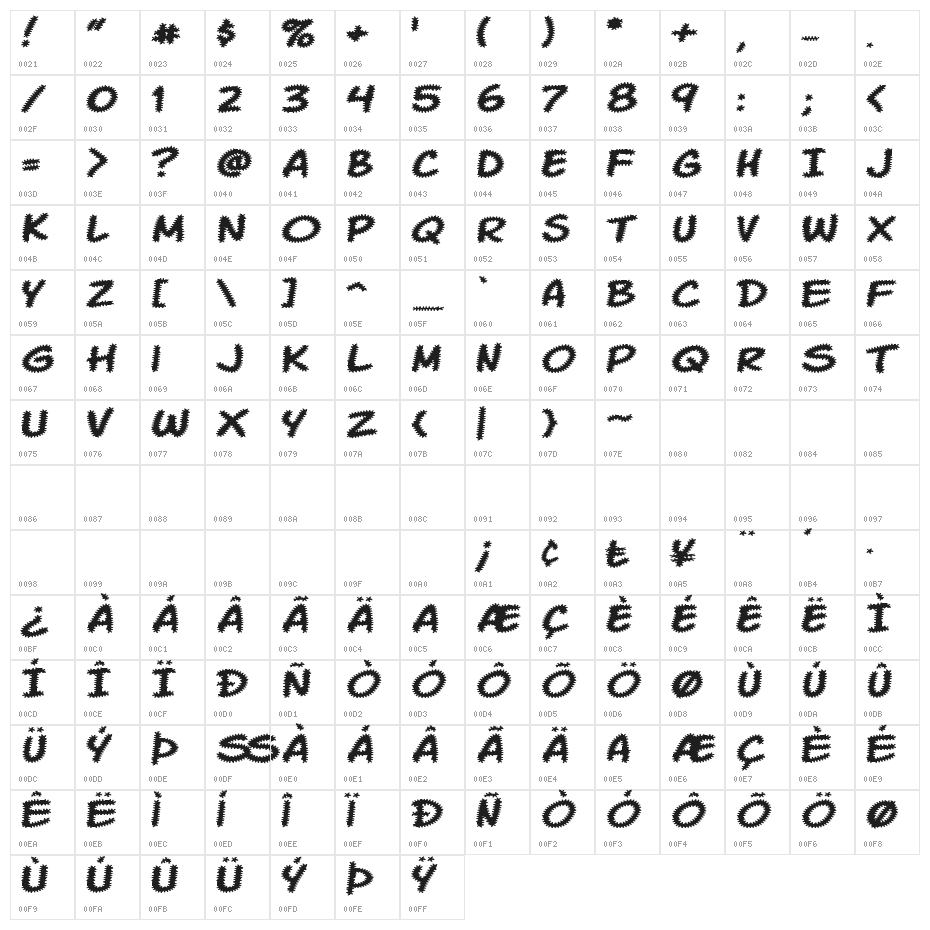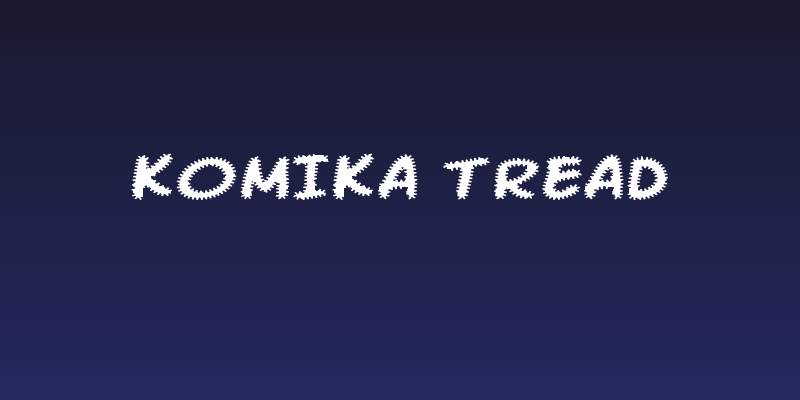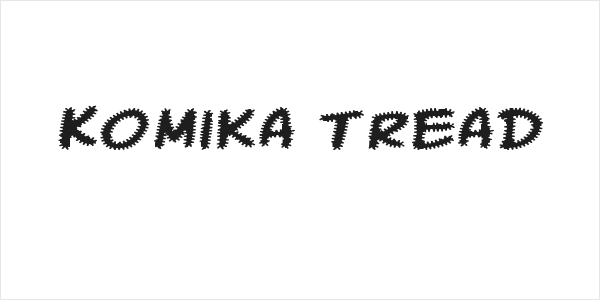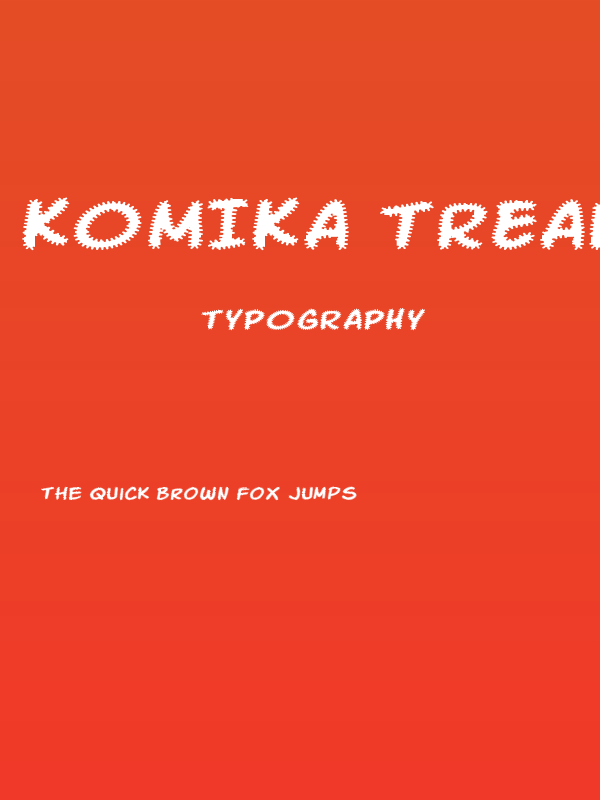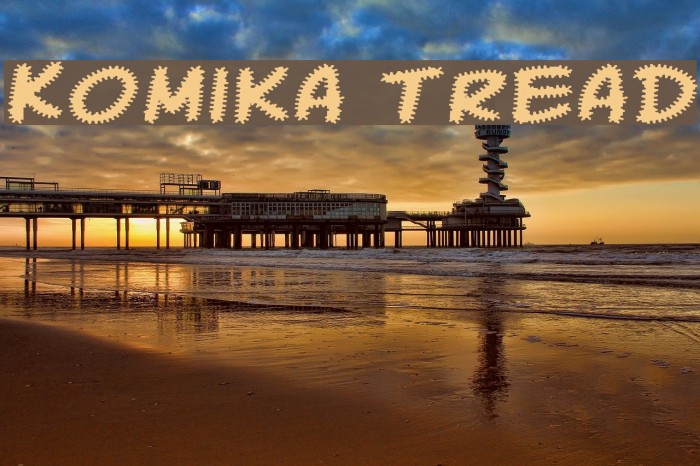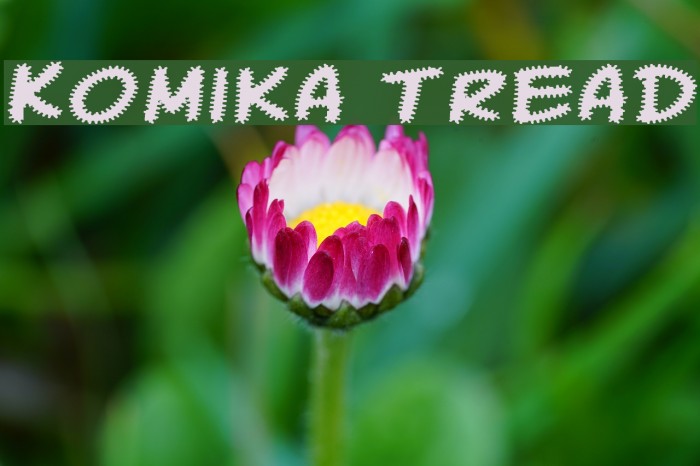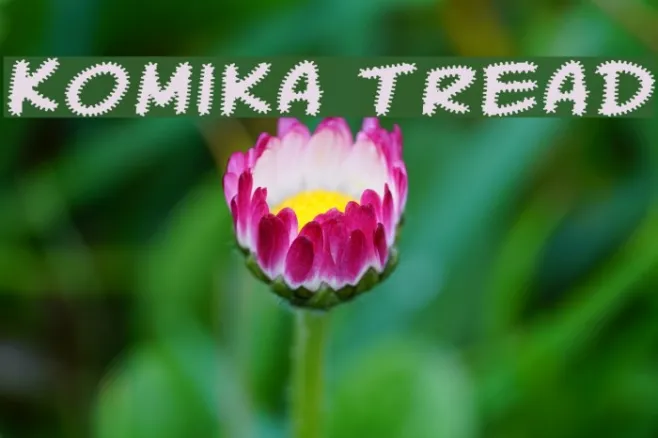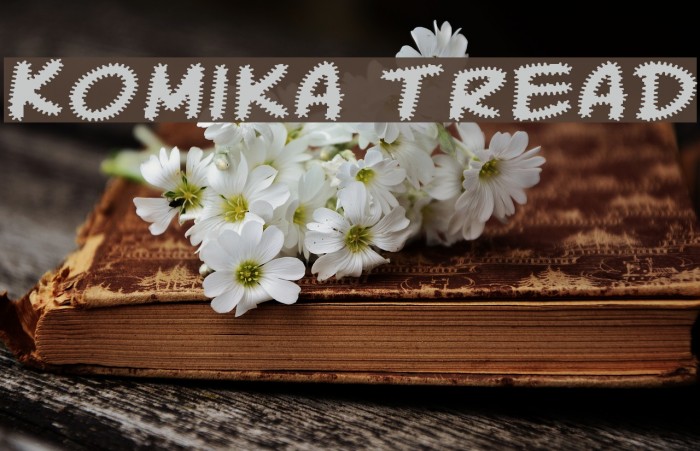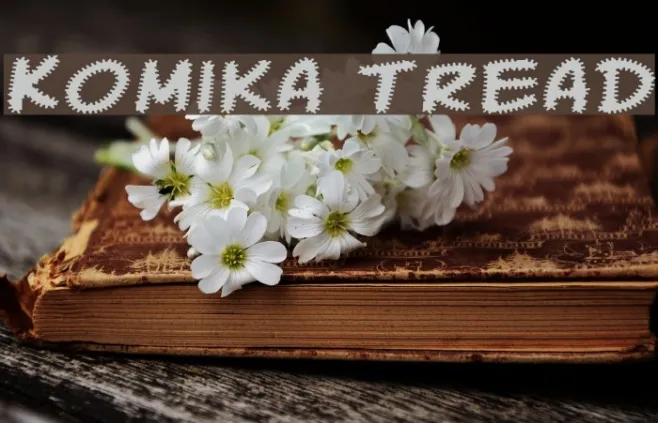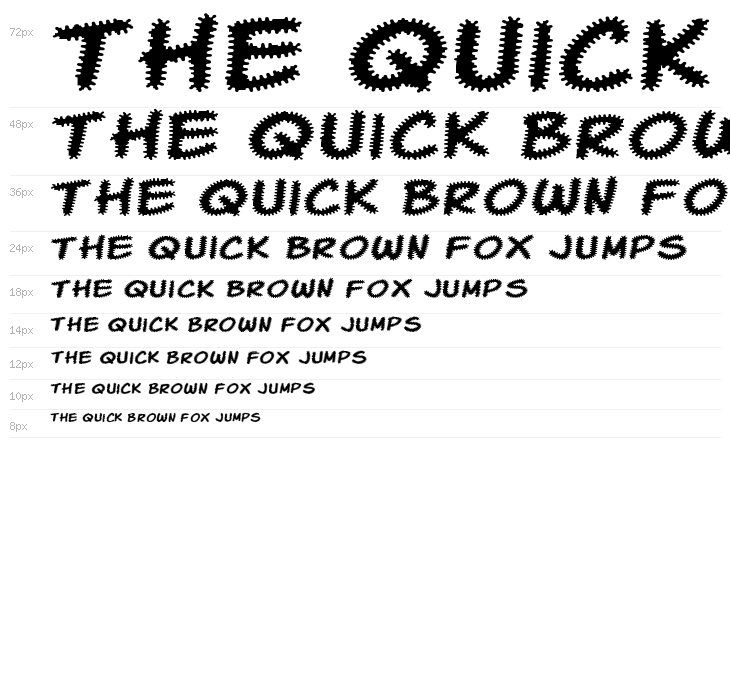
Komika Tread Font
Komika Tread Description
This font features a playful and bold design with a unique jagged edge that resembles the tread of a tire. The characters are uniformly thick, creating a strong visual impact. Each letter and number is crafted with a consistent pattern of spikes, giving it a dynamic and energetic appearance. The font maintains a uniform height and width across all characters, ensuring readability while adding a touch of whimsy. The special characters are designed with the same jagged style, making them cohesive with the rest of the font. This font is ideal for projects that require a fun and eye-catching typeface.
| Overall Style | Playful, Energetic |
| Proposed Projects | Ideal for comic books, children's posters, playful branding, and event flyers. |